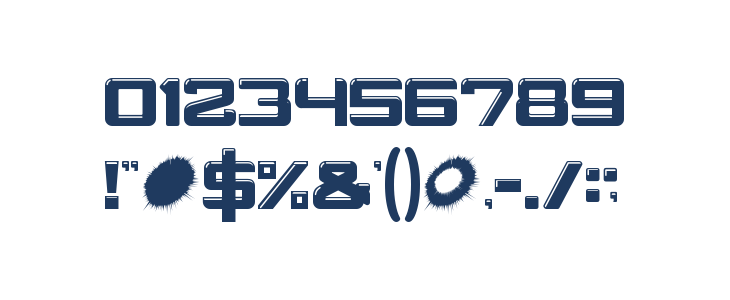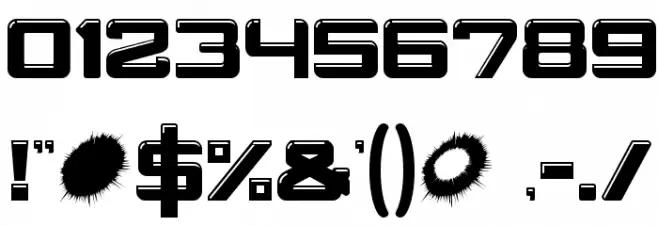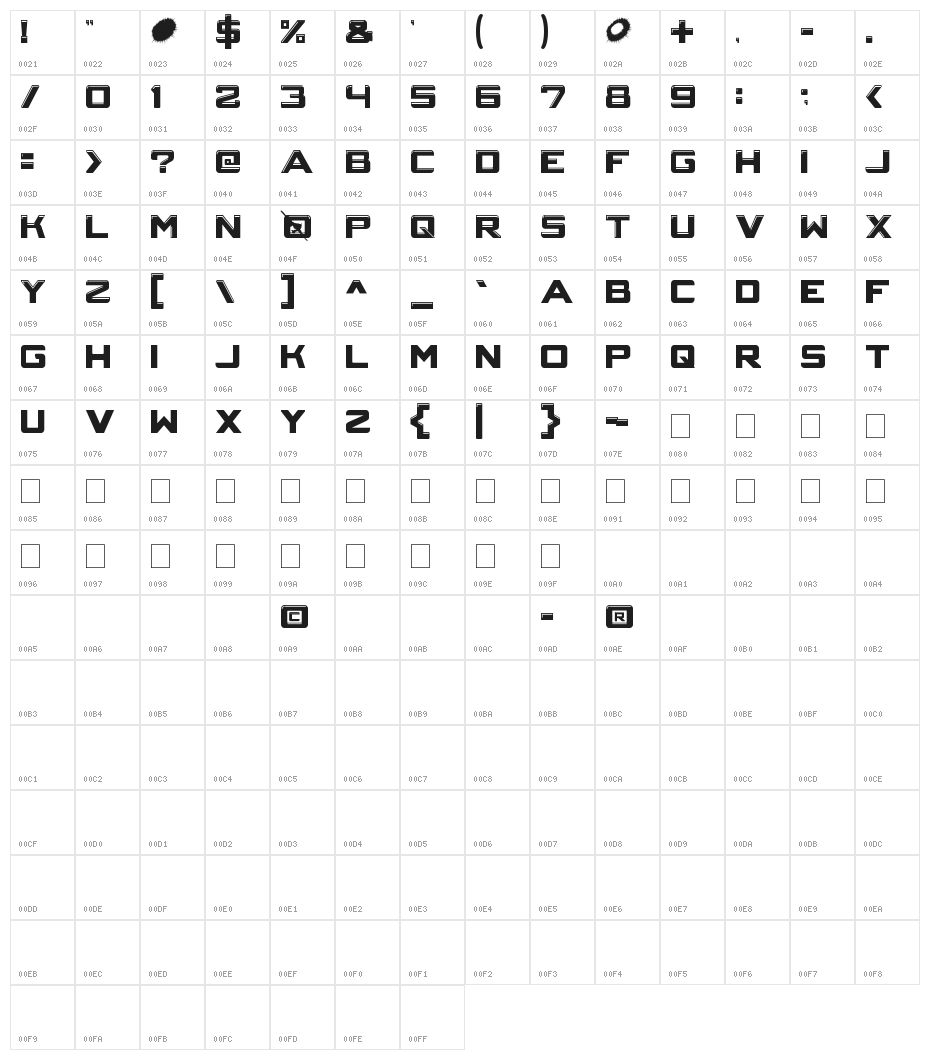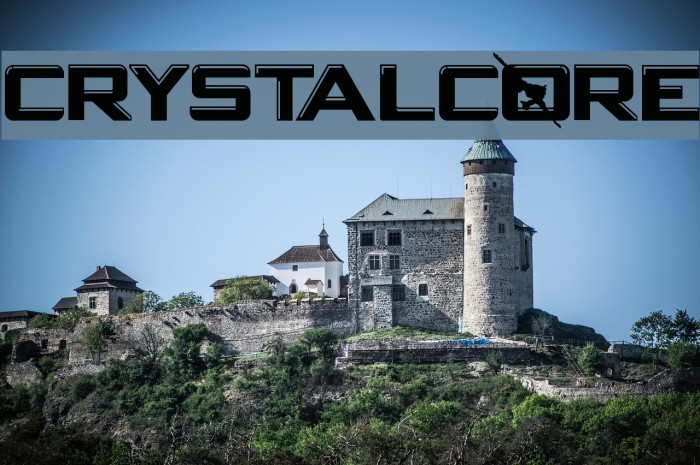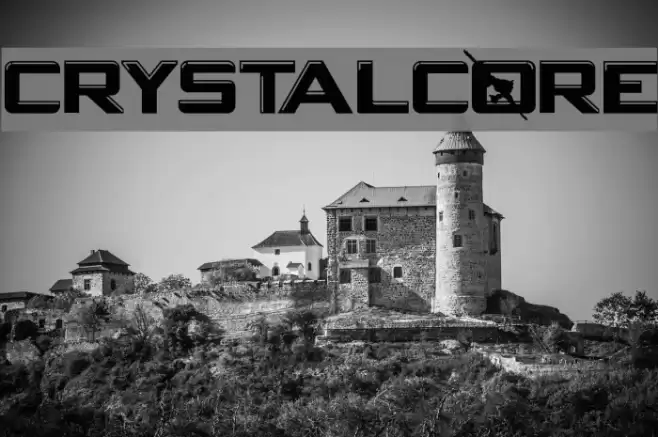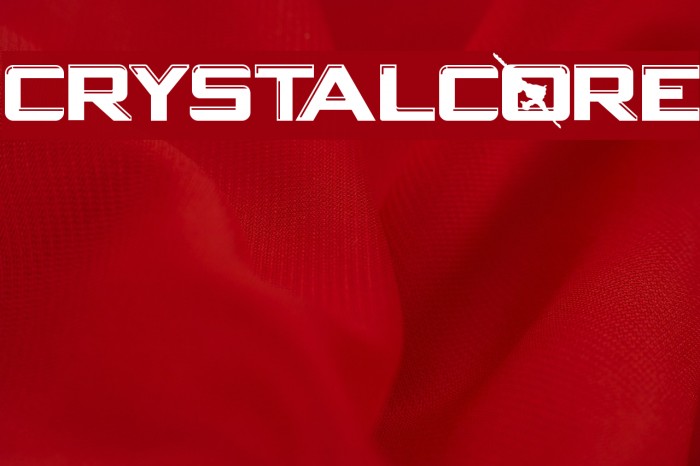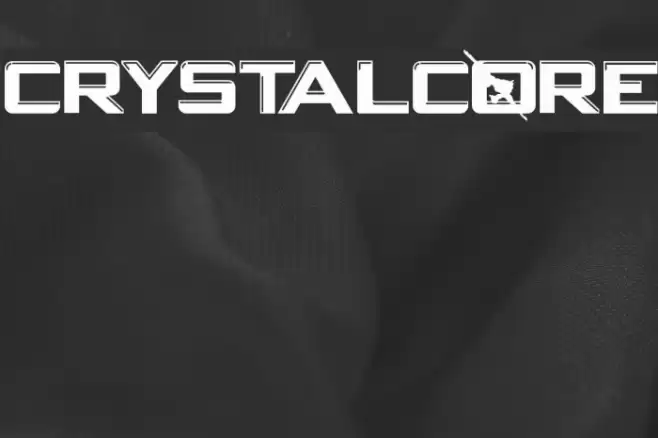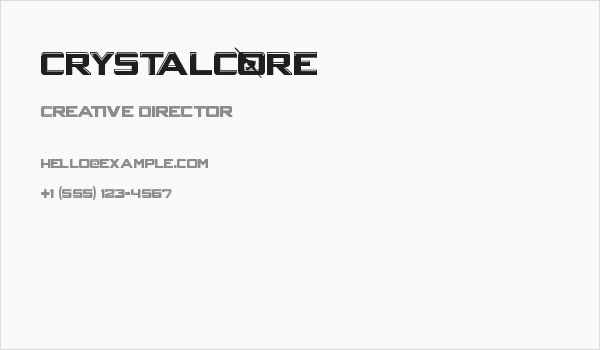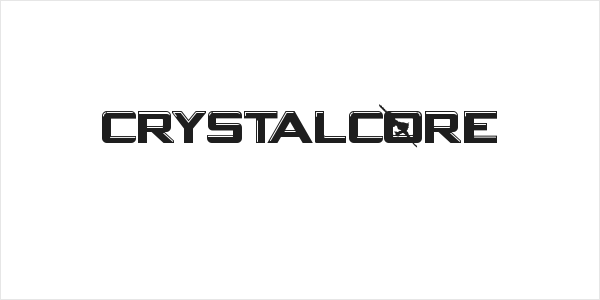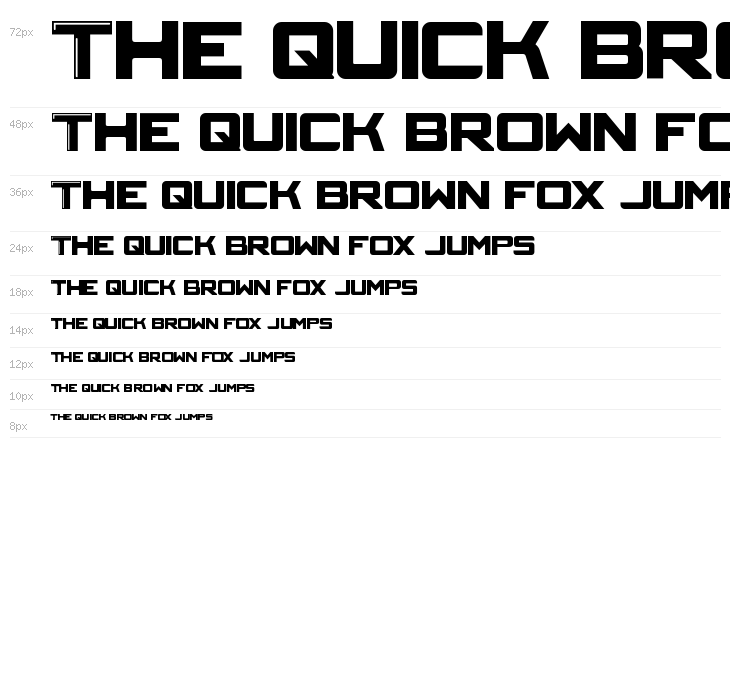
CRYSTALCORE Font
CRYSTALCORE Description
This font features a bold, futuristic design with a strong geometric influence. The characters are constructed with sharp angles and clean lines, giving it a modern and technological feel. The uppercase letters are particularly striking, with a consistent height and width that create a uniform appearance. The numbers and special characters maintain the same bold style, ensuring cohesion across all elements. This font is ideal for projects that require a strong visual impact, such as technology branding, gaming titles, or sci-fi themed designs.
| Proposed Projects | Ideal for technology branding, gaming titles, sci-fi themes, and impactful headlines. |